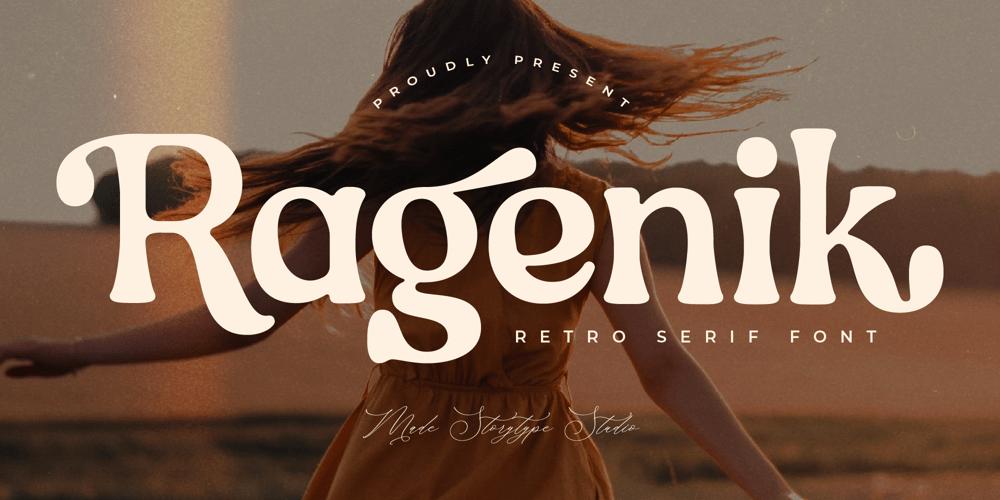
Ragenik Font Family was designed by Heru Utama Putra and published by Letterena Studios. Ragenik contains 2 styles and family package options. Ragenik is a modern and classy serif font perfect for elegant and luxury logos, book or movie title designs, fashion brands, magazines, clothes, lettering, quotes, and so much more.